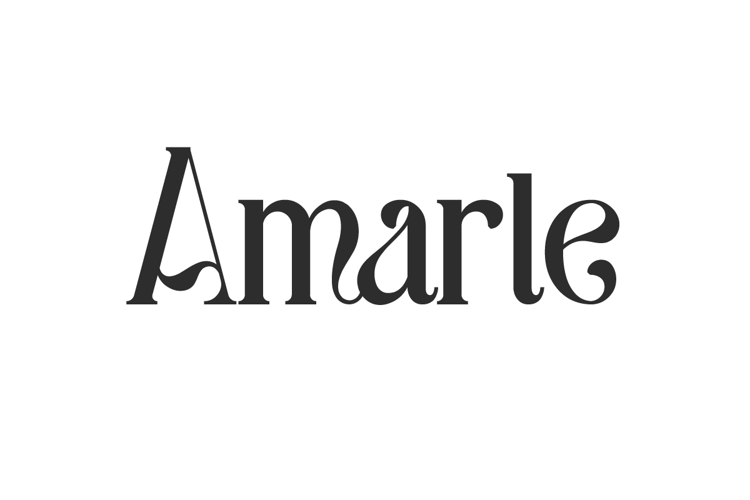
Amarle Font
Amarle Font is a bold classic sophisticated serif that charms while maintaining a timeless feel. This serif is slightly different by highlighting the artistic curved lines on each character. This versatile font is specially designed for branding, brochure, card designs, label, magazine images, mockup template, poster designs, product packaging, quotes, stationery, stickers, websites, wedding invitations, and more.
Amarle Font contains a complete set of Uppercase and Lowercase Characters, Numbers, Punctuation and Symbols. A choice of classy and iconic font for apparel, bridal boutique, cosmetics, fashion, furniture, graphic design, home decoration, makeup artist, photography, skincare, spa salon, wedding. This will help elevate your project to stand out more with its style.